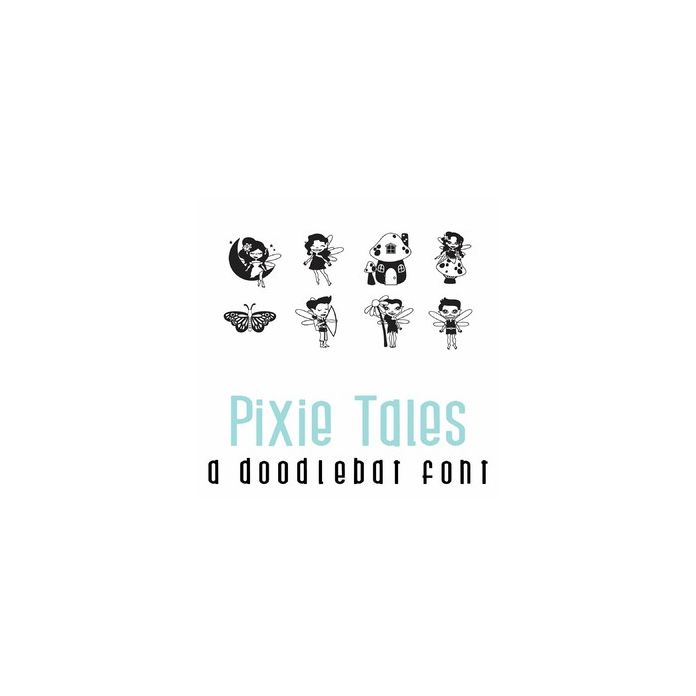
This fun doodlebat font features 26 pixies and Spring and Summer elements. Perfect for cards, crafts, gifts, decor, scrapbook pages, planner stickers and more!